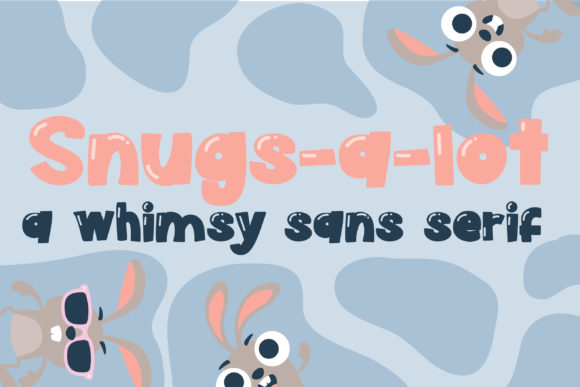
**Snugs a Lot** is an exquisite sans serif font family, meticulously crafted to bring a touch of whimsy and versatility to your creative endeavors. Each letterform dances with a playful spirit, ready to transform your designs into captivating masterpieces.
**Discover the Endless Possibilities**
With its captivating curves and charming personality, Snugs a Lot is the perfect choice for a wide array of design projects. Whether you're crafting eye-catching titles, designing vibrant posters, or creating unforgettable displays, this font will elevate your work to new heights.
**Small Print, Big Impact**
Don't let its seemingly petite size fool you. Snugs a Lot is a master of small print, delivering exceptional clarity and readability even at the most diminutive scales. Its carefully crafted letterforms ensure that your message shines brightly, leaving a lasting impression on your audience.
**A Font with Character**
Snugs a Lot is more than just a collection of letters; it's a font with a personality that shines through in every design. Its playful nature adds a touch of charm to any project, while its versatility allows you to adapt it seamlessly to a multitude of styles.
**Experience the Snugs a Lot Difference**
Join the ranks of discerning designers who have discovered the magic of Snugs a Lot. Its unique blend of whimsy, versatility, and readability will transform your designs into works of art that captivate and inspire.